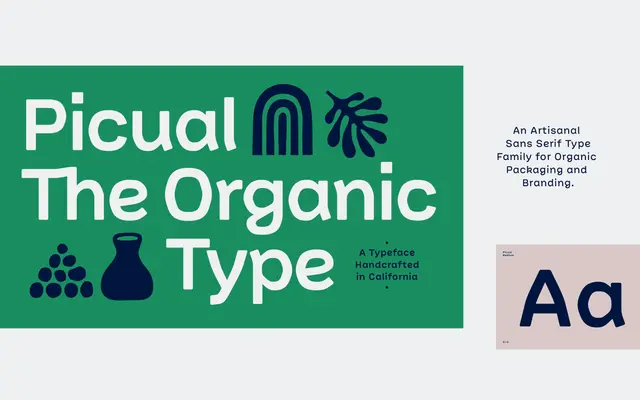
Picual
A three-width humanist sans in four weights, with a variable version and a generous set of OpenType alternates for switching between grotesk and humanist letterforms.
Thirteen static styles span Regular, SemiCondensed and Condensed widths across Light to Bold, with a variable counterpart covering the full range. OpenType features include a double-storey 'a', traditional 'g' and 'k', a serif 'I' and an alternate ampersand, giving designers meaningful control over the typeface's personality. The condensed cuts and alternates make it a practical choice for packaging, editorial and branding work where space and tone both need managing.
Picual is a sans-serif with opentype alternates suggesting humanist construction, offering optional double-storey 'a', traditional 'g' and 'k', and a serif 'I', pointing to a humanist sans with optional geometric or grotesk-leaning variants.